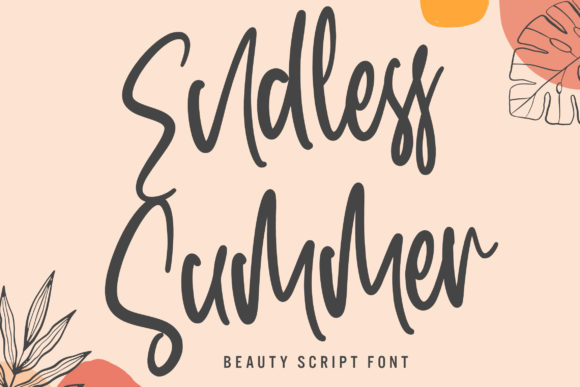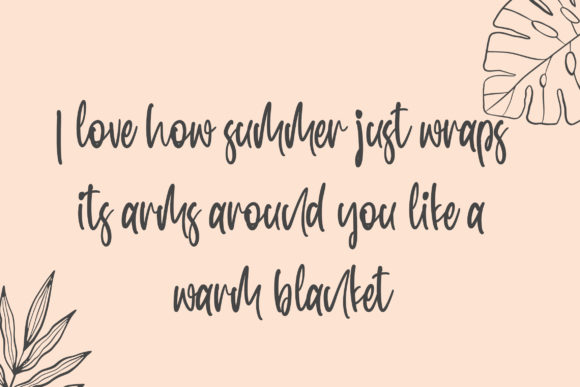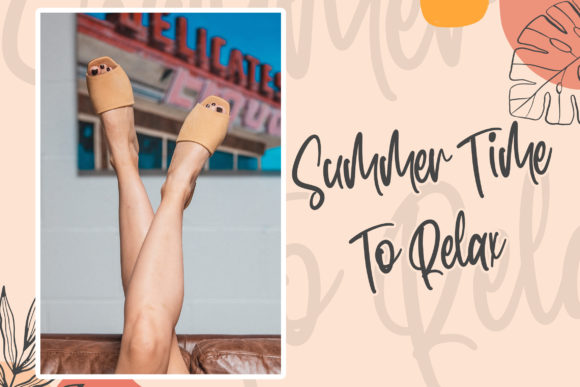
About Endless Summer Font
Endless Summer is a stylish and elegant handwritten font ready to impress your audience and make your branding shine. Make your projects stand out with this elegant and wonderful font wherever you use it. Perfect for headings, logos, ads, printed quotes, packaging, and even your website or social media branding.